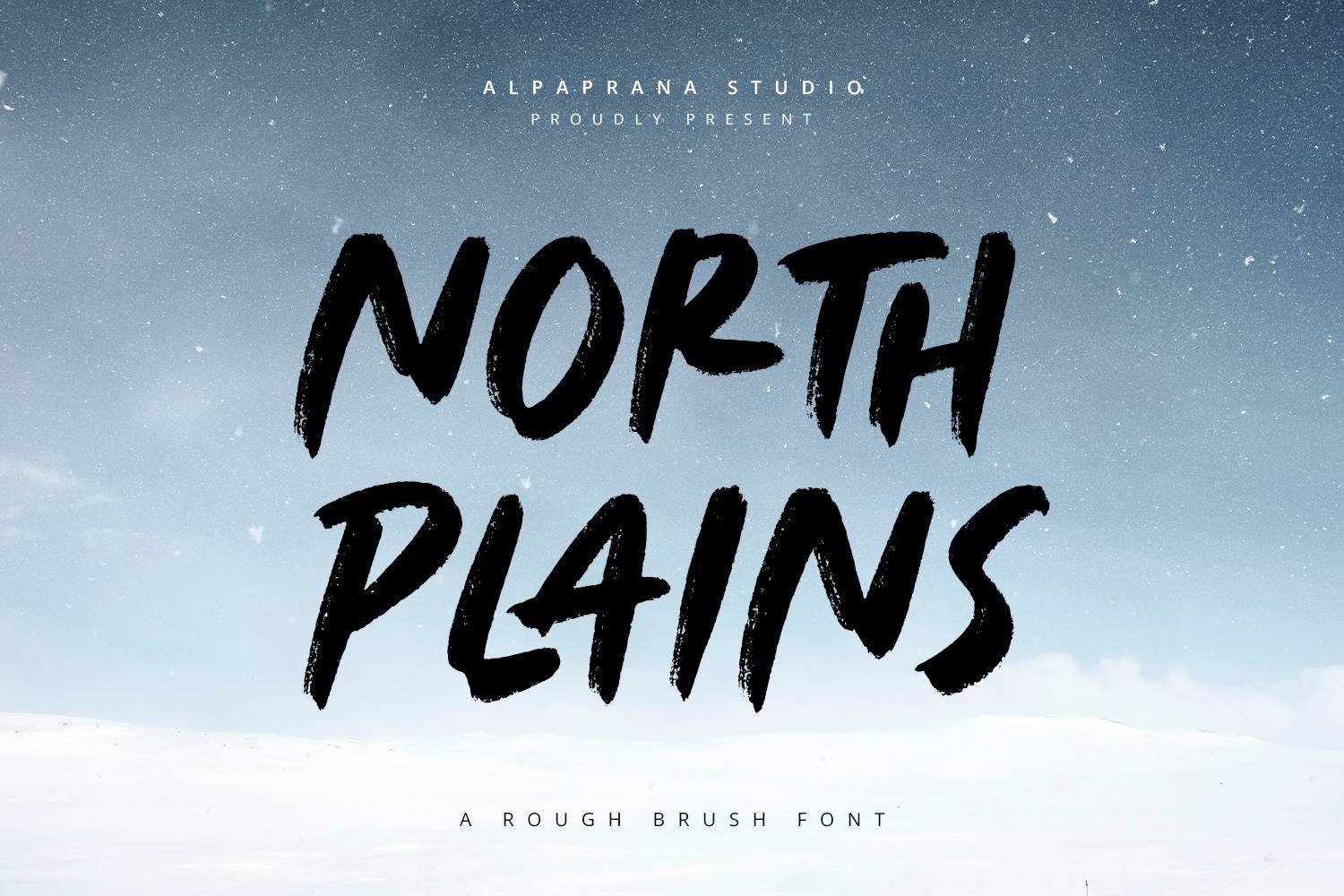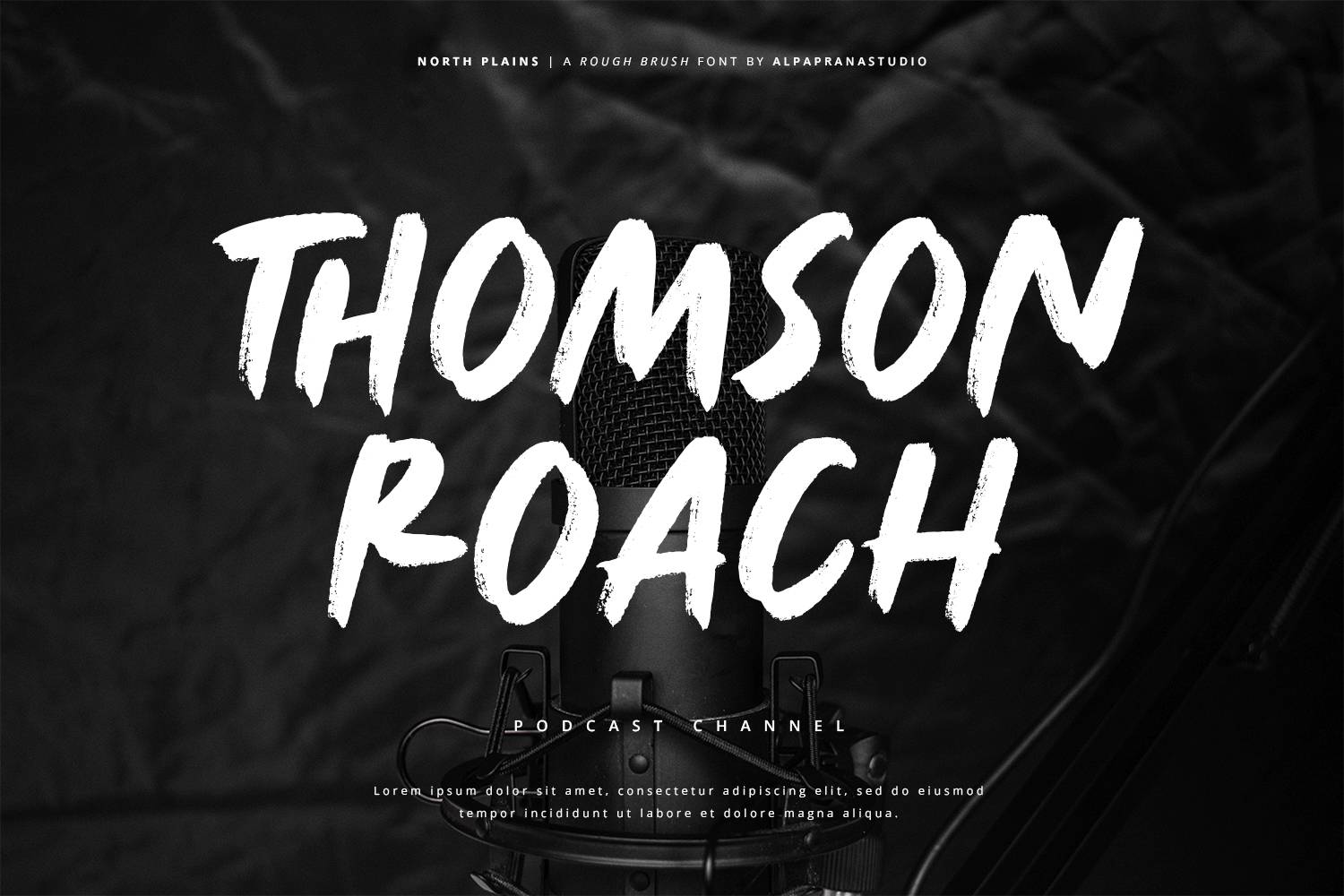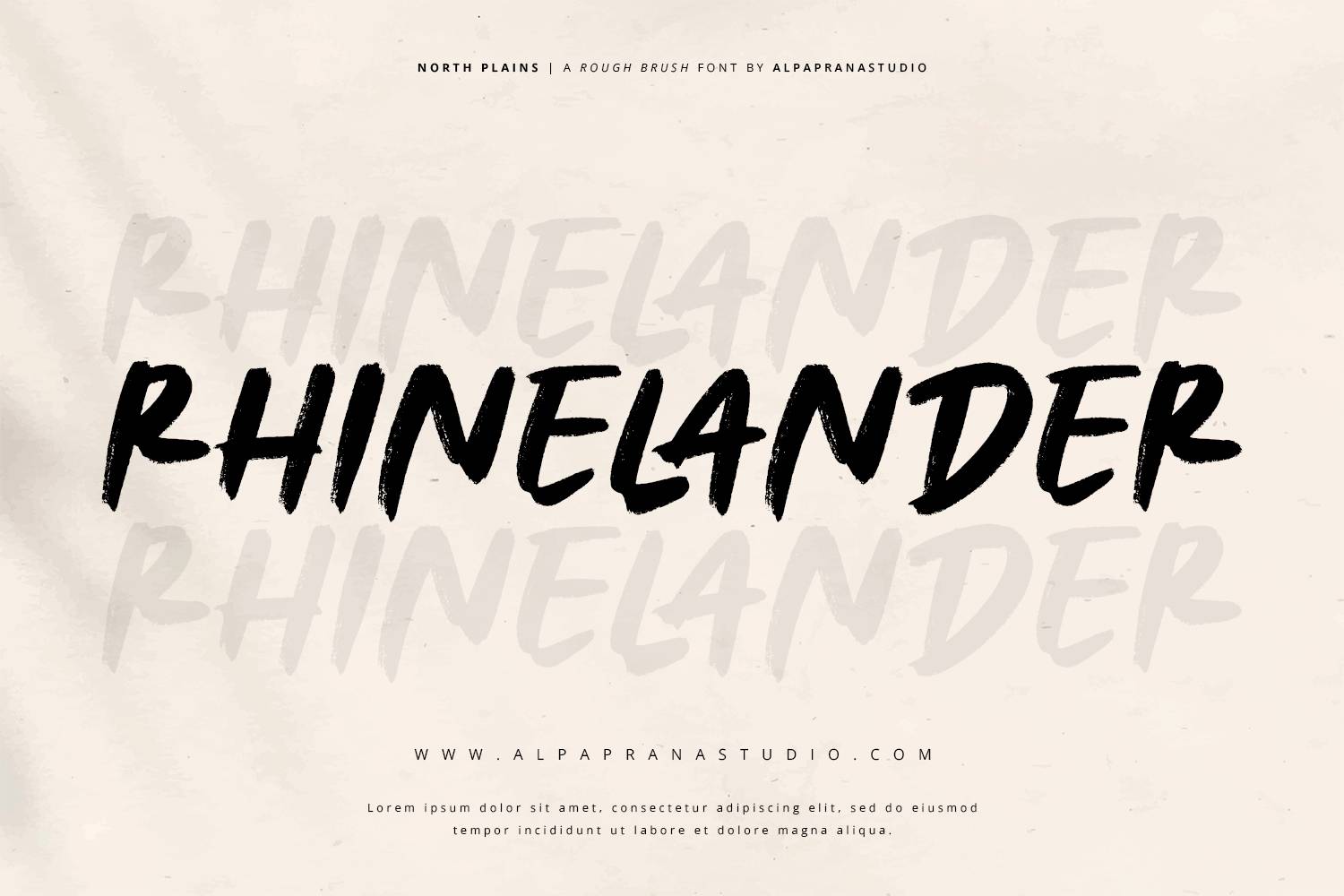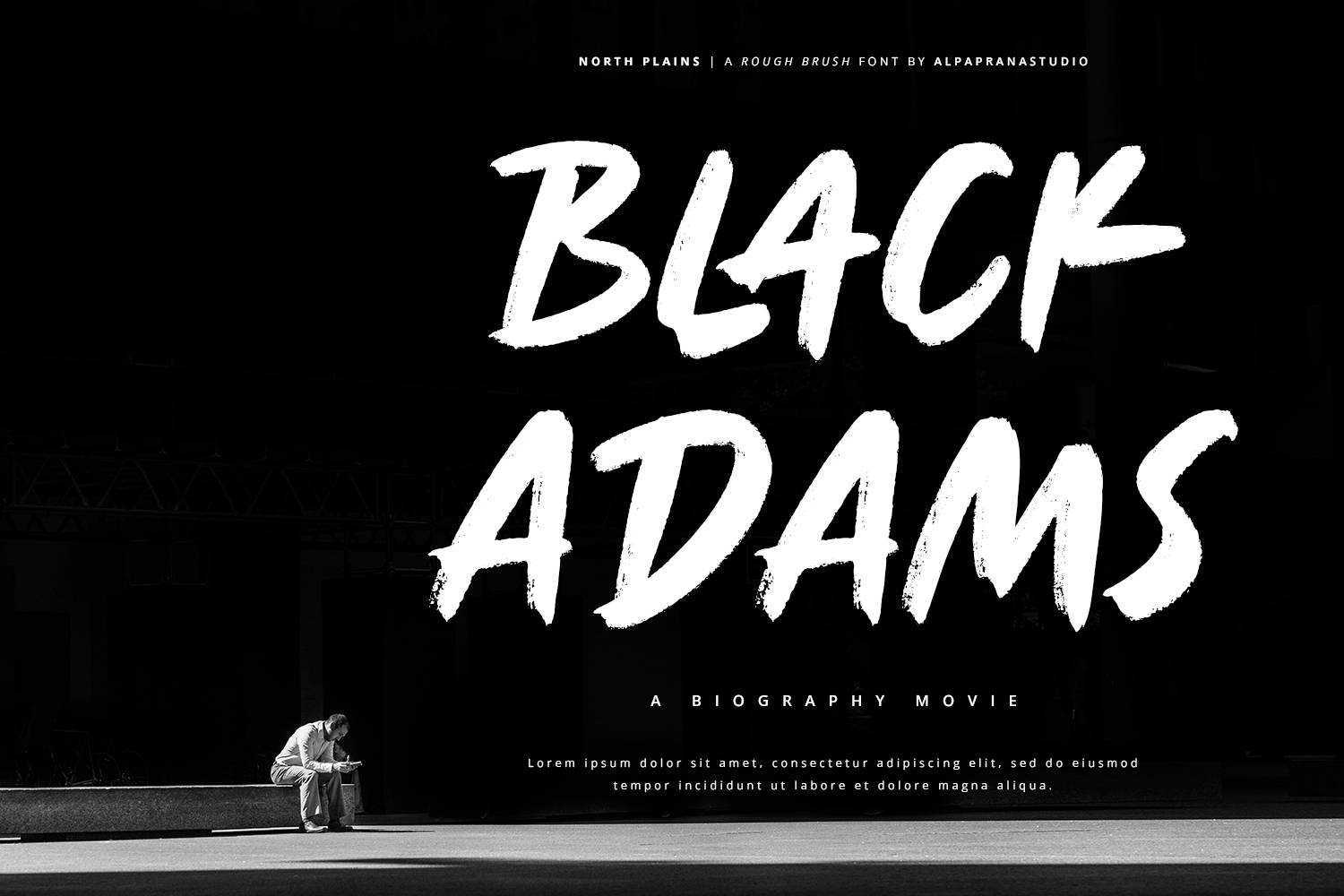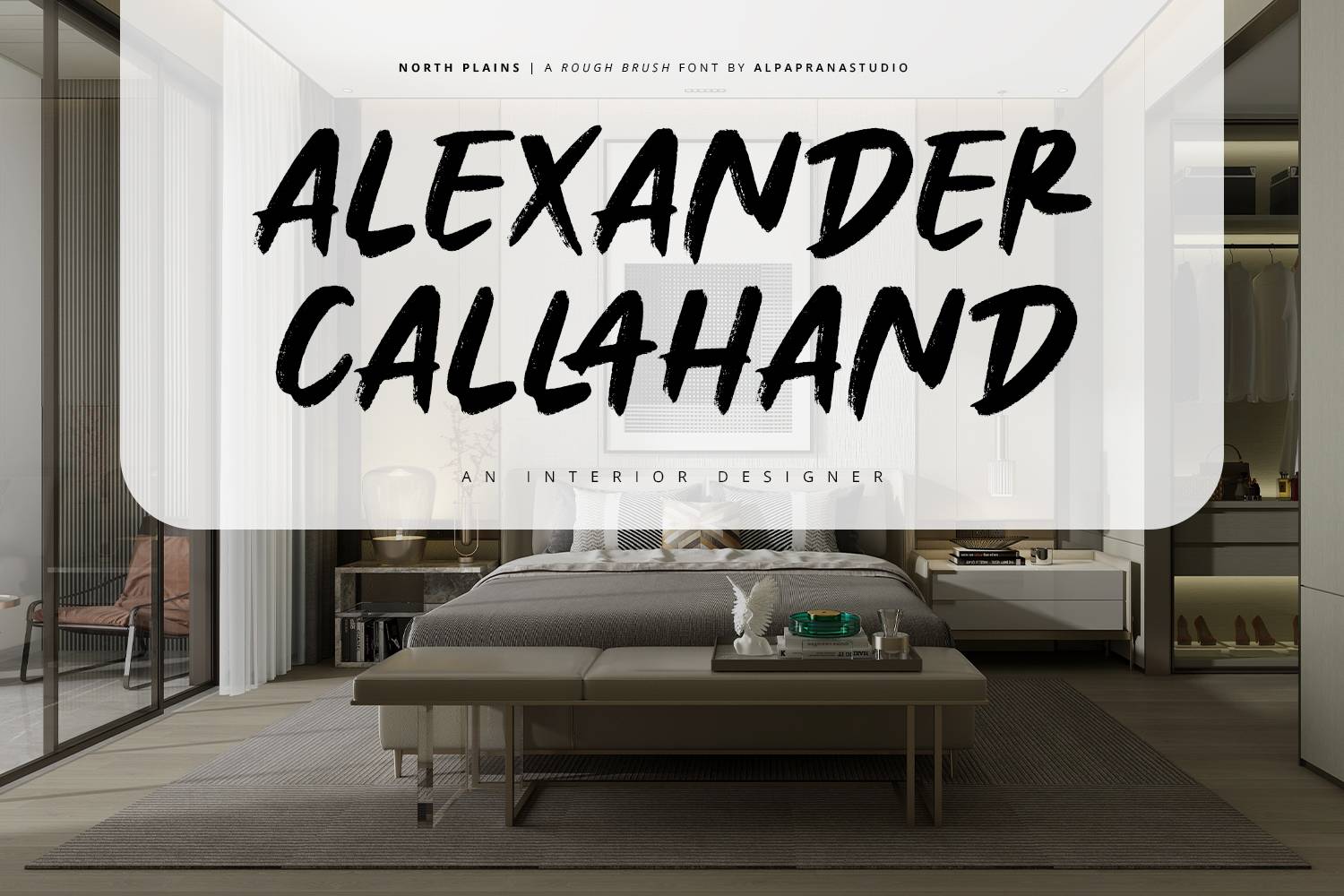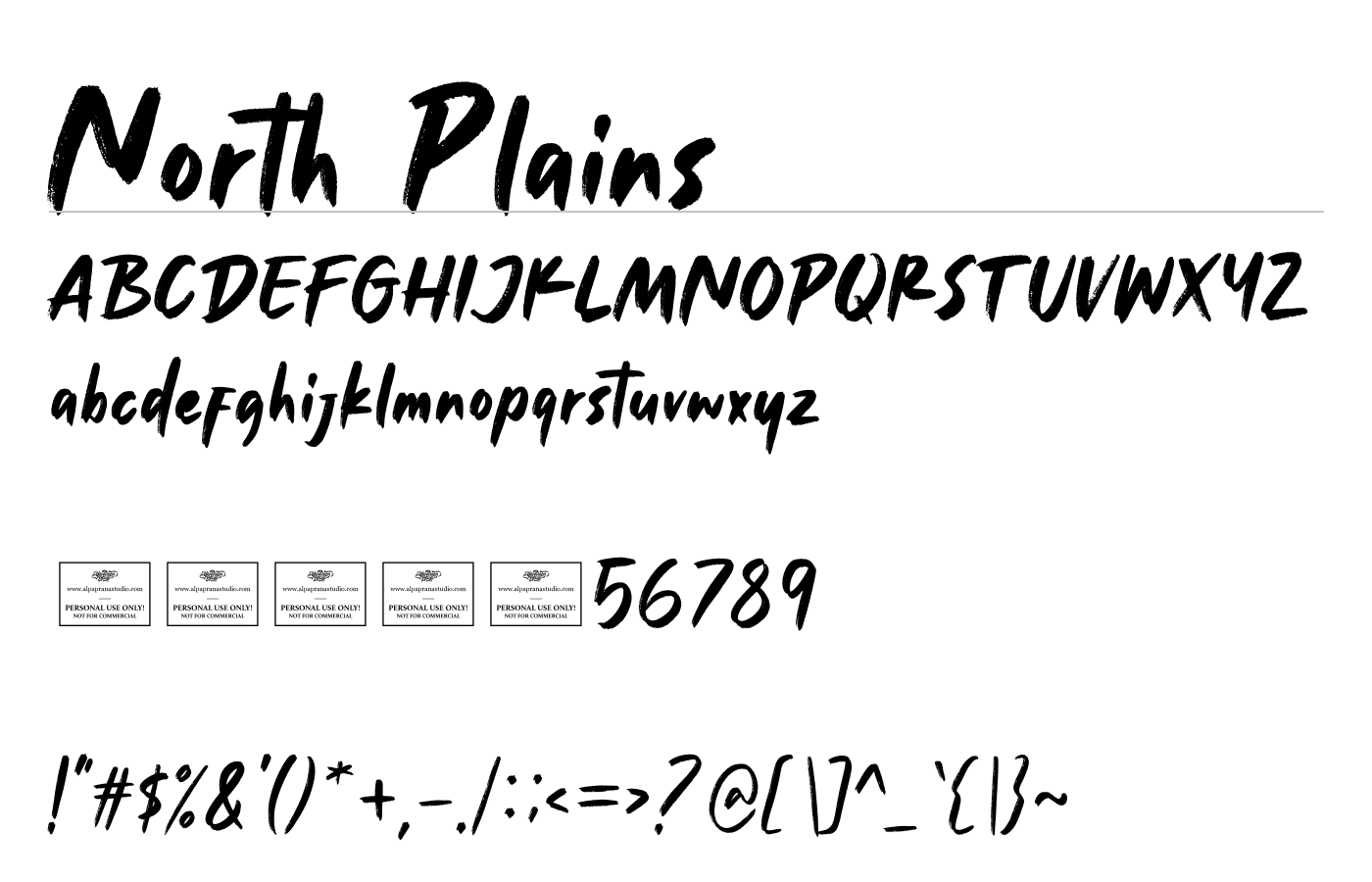
North Plains is a bold, expressive brush script font with a lively, hand-painted feel. Its uneven strokes and slightly rough texture give it a casual yet confident personality, making it ideal for creative branding, posters, and dynamic headlines that need an energetic, authentic touch. This font works best where a natural, artistic vibe is desired to connect with a youthful or adventurous audience.
North Plains Font
About North Plains Font